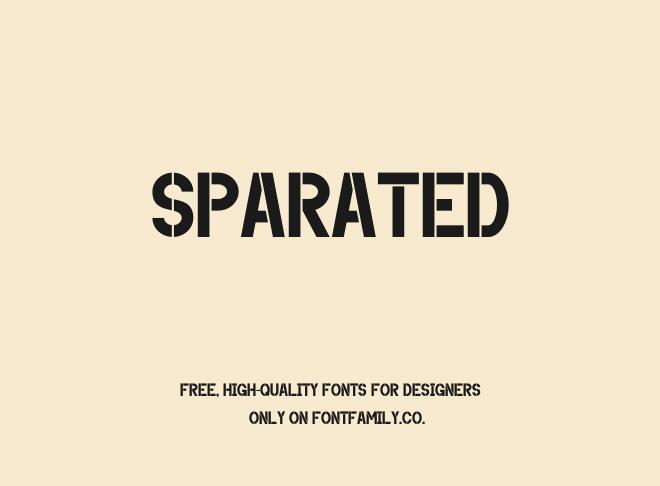
Sparated Font
Introducing the Sparated Font, a modern and minimalistic typeface with a geometric twist. Its clean lines and sharp edges make it a perfect choice for designers seeking a fresh, contemporary feel. The Sparated Font is reminiscent of other popular fonts such as Futura and Avant Garde, yet it carves out its own identity with unique features and an individualistic style. Ideal for use in branding, web design, and print media, this font offers a high degree of versatility. Its simplicity allows it to blend seamlessly with various design aesthetics, while its distinctive character ensures it stands out in any design project. The Sparated Font is a must-have addition to any designer's toolkit and is a testament to modern typography's elegance and functionality.
Author | Design Foundry |